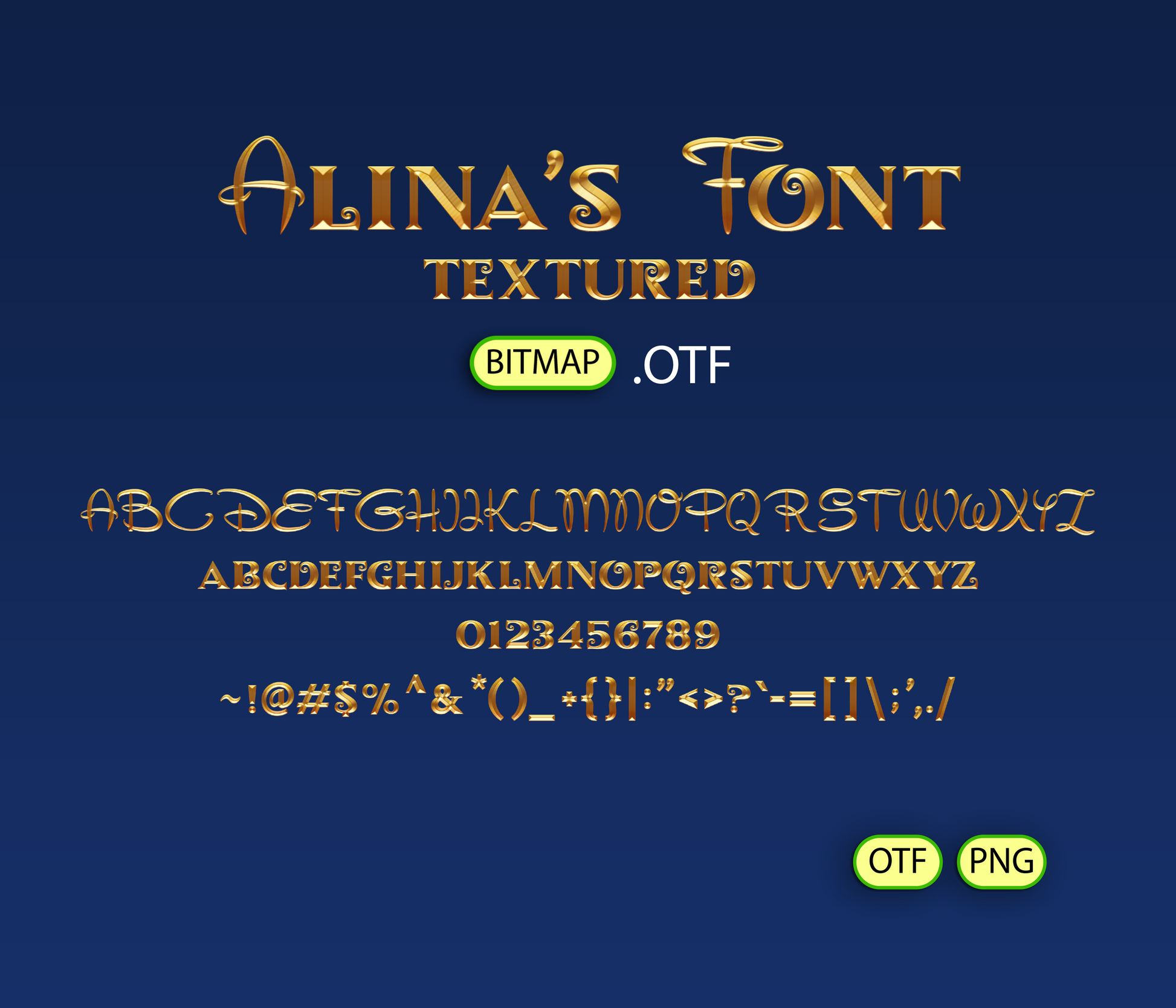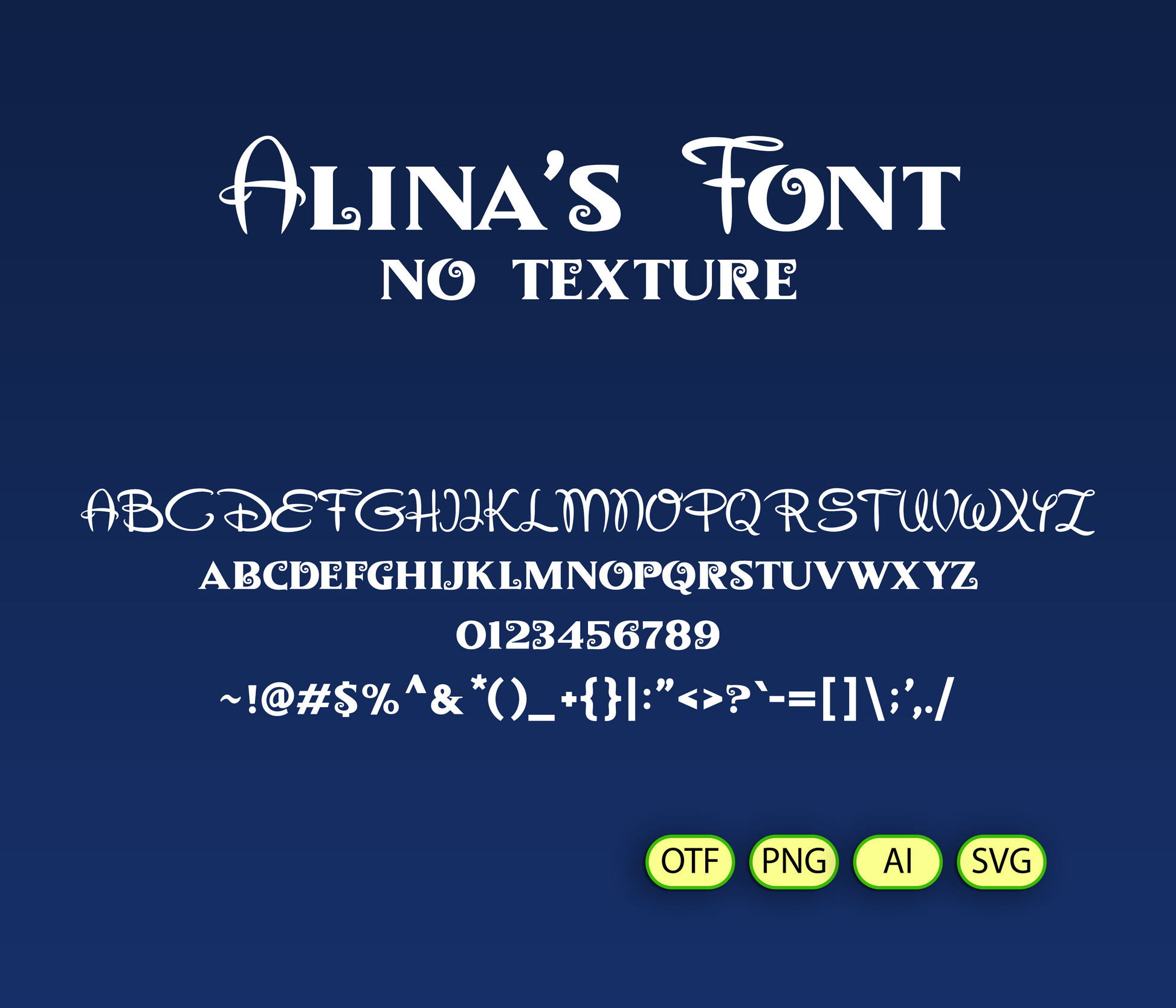
Magical Academy Font Textured
Step into the enchanted world of modern fairy-tale students with our Magical Academy font, capturing the essence of spellcasting teens and contemporary enchantment. Perfect for fantasy fans, party planners, event organizers, and designers, this font brings the fresh, magical spirit of young sorcery to your projects. Create trendy materials, merchandise, or digital content with the vibrant energy of next-generation magic.
Our Magical Academy font features trendy, mystical lines and youthful characters reflecting the world of modern enchantment. Ideal for:
- Event Promotions: Create cool invites, posters, and banners for teen gatherings, magical events, and themed celebrations that capture the spirit of young sorcery
- Merchandise Design: Perfect for t-shirts, posters, and accessories that showcase the stylish side of magical youth
- Digital Media: Enhance websites, blogs, and social media with fresh headers and graphics that express the fusion of tradition and trend
- Fantasy Content: Add authentic flair to fan art, fashion designs, and creative projects inspired by magical students
- Personal Projects: Bring contemporary enchantment to scrapbooking, DIY crafts, and home decor inspired by the world of young spellcasters
Our font pays tribute to the exciting world of young magic users, empowering your designs with its fresh and enchanted spirit. Whether crafting promotional materials, designing merchandise, or adding a contemporary touch to personal projects, this font communicates the bold essence of modern spellcasting. Ready to inject youthful magic into your creations? This font is your key to exciting, impactful design.